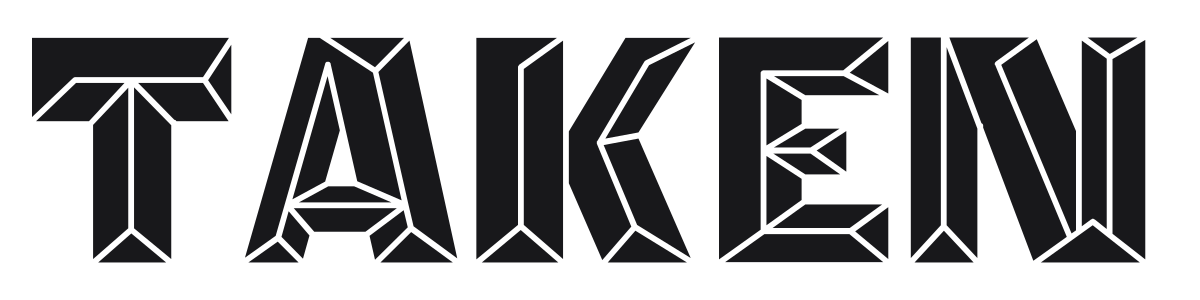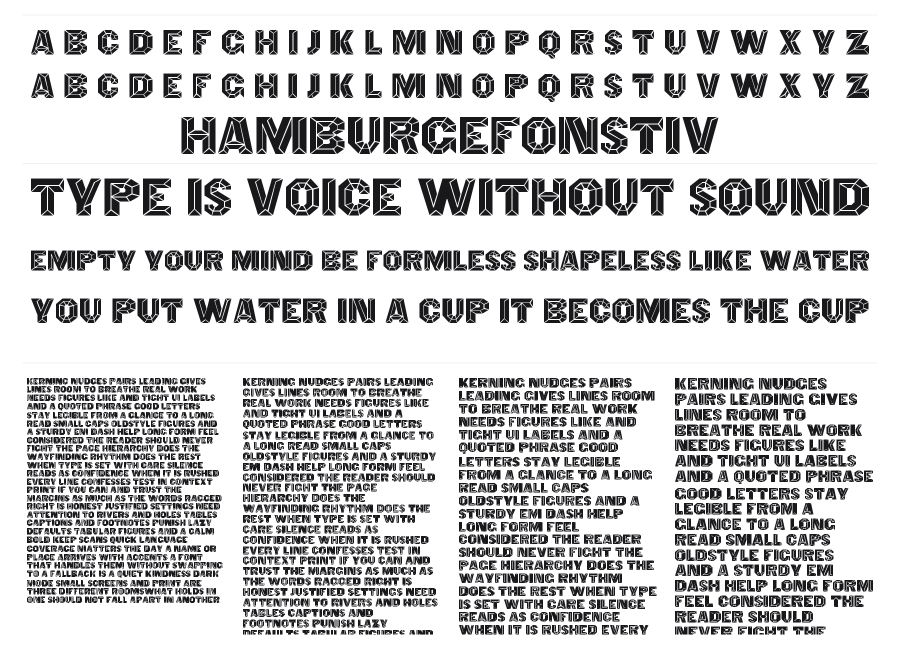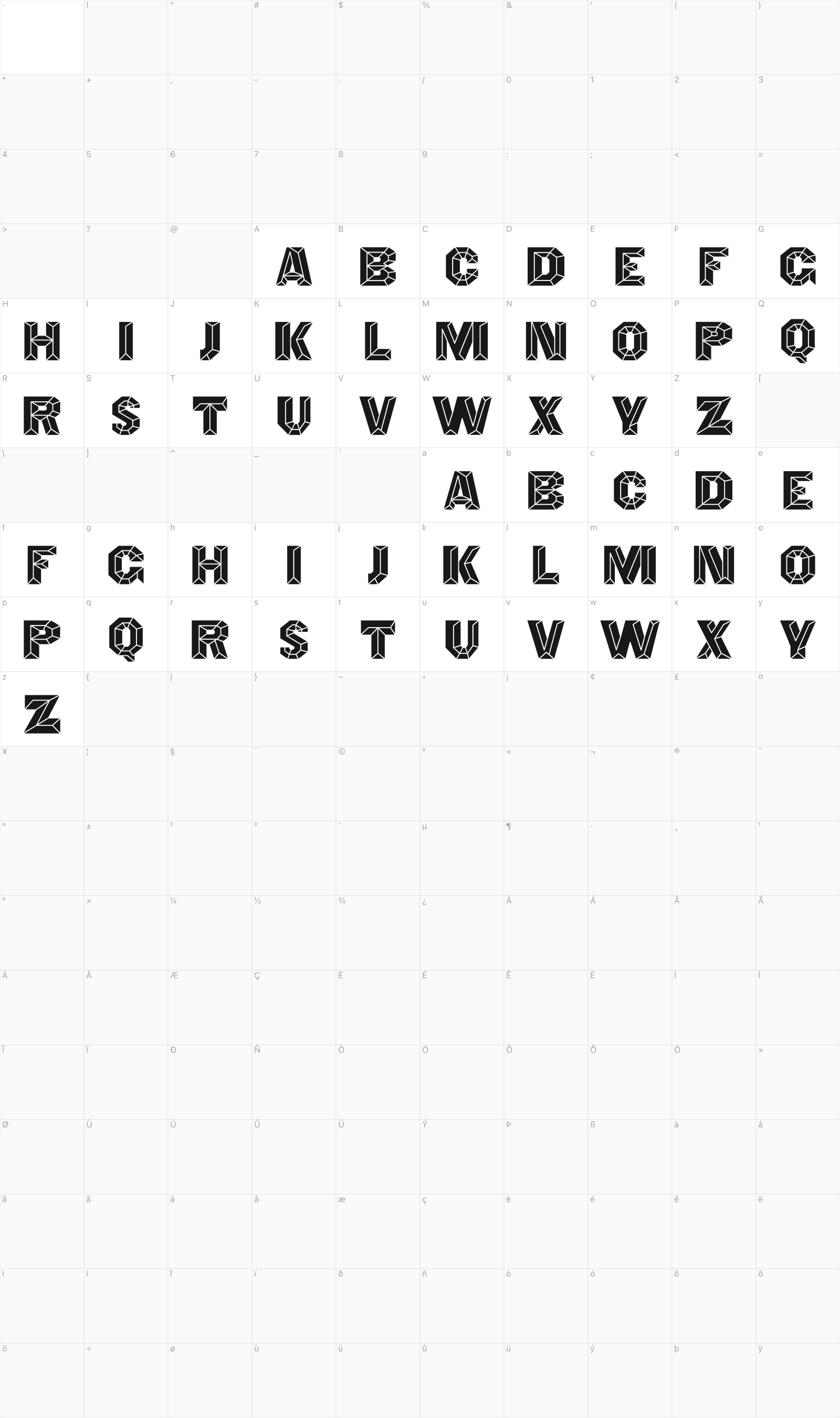
Taken
Taken is a heavy geometric display font built from faceted, crystalline segments that give each character the look of a shattered or gem-cut surface. The angular, blueprint-like interior lines create a striking visual texture while the overall silhouette stays bold and blocky. It suits high-impact headlines, poster titles, and anywhere a raw, industrial edge is needed.